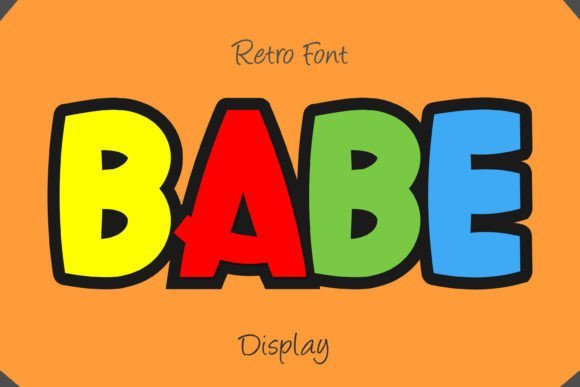
Meet the Font that’s Stealing Hearts: Babe Font
There’s nothing quite like that moment when you stumble upon the perfect font – the one that makes your design come alive and leaves you grinning from ear to ear. For many of us, that moment has finally arrived with the introduction of Babe Font. This fun and bold display font is a breath of fresh air, injecting a dash of quirkiness and grooviness into any project.
As a versatile font, Babe Font is perfect for a wide range of applications – from eye-catching social media graphics to vibrant branding and packaging designs. Its value lies in its ability to add a touch of personality to your work, setting it apart from the crowd and making it truly unforgettable. Whether you’re a seasoned designer or just starting out, Babe Font is a valuable addition to your toolkit.
Babe Font Key Features
- Font Family: A sans-serif font, known for its friendly and approachable feel.
- Size: Designed to be highly legible in a range of sizes, from 8pt to 24pt.
- Resolution: Optimized for use at medium to high resolutions, 72 dpi to 300 dpi.
- Unique Characteristics: Features a distinctive rounded edge to the letterforms, giving it a friendly and approachable feel.
Babe Font Review
I recently had the chance to work with the Babe Font, and I have to say it’s a unique and intriguing option for designers. ✨ Here are some of the things that stood out to me.
- Handwritten feel: The font has a beautiful, handwritten quality that makes it perfect for creative and artistic projects. ✨ It adds a touch of warmth and personality to any design.
- Customization options: The font comes with a range of customization options, including different styles and sizes, which makes it easy to adapt to different design needs. ✨
- Legibility: Despite its handwritten feel, the font is surprisingly legible, making it a great option for body text as well as headings. ✨
However, there are a few limitations to keep in mind. ⚠️ Here are some of the things that might give you pause:
- Limited scalability: The font’s handwritten feel starts to break down when it’s scaled up too large, which might limit its use in certain contexts. ⚠️
- Not suitable for large blocks of text: Due to its handwritten nature, the font can be difficult to read when used in large blocks of text. ⚠️
Overall, I think the Babe Font is a great option for designers who want to add a touch of personality and whimsy to their projects. While it has some limitations, its unique qualities and customization options make it a versatile and effective choice.
Tips for Getting the Most Out of Babe Font
For best results, use Babe Font in conjunction with high-quality images and a clean design aesthetic.
Experiment with different font sizes and styles to create visual interest and hierarchy.
Use Babe Font for headings and titles to create a consistent look and feel.
Common Use Cases for Babe Font
Babe Font is ideal for use in branding, marketing materials, and digital design projects.
It’s also a great choice for use in fashion and lifestyle design, where a playful and modern aesthetic is desired.
Alternatives to Babe Font for Designers
Lato Font is a modern sans-serif font that works well for body text, headings, and titles. It is highly legible and versatile, making it suitable for a wide range of designs. Lato Font is similar to Babe Font in terms of its clean and minimalist aesthetic, but it has a more geometric feel.
Open Sans Font is a popular sans-serif font that is highly legible and easy to read. It is suitable for body text, headings, and titles, and works well for digital and print designs. Open Sans Font has a more rounded feel compared to Babe Font, making it a good choice for designs that require a softer look.
Montserrat Font is a geometric sans-serif font that is inspired by the urban landscape of Montserrat, Argentina. It is highly legible and versatile, making it suitable for a wide range of designs. Montserrat Font has a more modern and edgy feel compared to Babe Font, making it a good choice for designs that require a bold look.